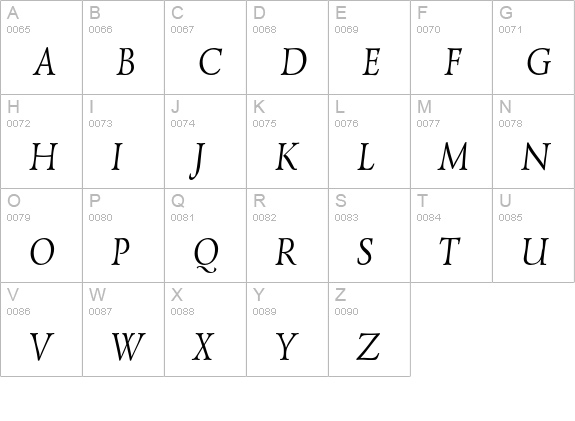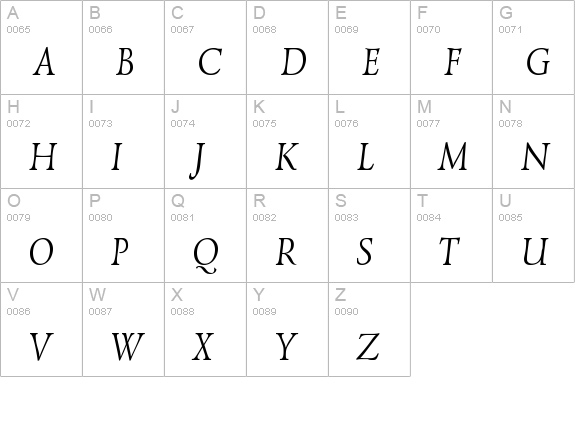
PM Lazurski Italic Cyrillic Font Details
PM Lazurski Italic Cyrillic is a distinctive, italic variant in the PM typeface family \xE2\x80\x94 well suited to design and typography projects.
PM Lazurski Italic Cyrillic is a stunning and elegant font that combines classic elements with a modern twist. This unique typeface is perfect for adding a touch of sophistication to any design project, whether it's a logo, branding, or typography for print or digital media. Its italicized letterforms exude a sense of grace and fluidity, making it a versatile choice for both formal and informal settings. What sets PM Lazurski Italic Cyrillic apart is not only its aesthetic appeal but also its accessibility. This font is freely available to download at FontsMarket.com, allowing designers and typographers to incorporate it into their work without any barriers. Whether you're a professional designer or an aspiring creator, the availability of this font for free ensures that you have access to top-quality design resources. With its comprehensive Cyrillic character set, PM Lazurski Italic Cyrillic goes beyond the Latin alphabet, making it an excellent choice for projects that require multilingual support. Its clean lines and legible letterforms make it easy to read, even at smaller sizes, ensuring that your message is effectively communicated to a diverse audience. The attention to detail in PM Lazurski Italic Cyrillic is evident in its refined curves and precise spacing, ensuring a harmonious and balanced appearance. The font's subtle variations in stroke width create a sense of depth and dimension, adding a touch of sophistication to any design. Whether used in headlines or body text, this font is sure to make a lasting impression. In conclusion, PM Lazurski Italic Cyrillic is a versatile and visually appealing font that combines classic elegance with a contemporary edge. Its freely available download option at FontsMarket.com makes it accessible to designers of all levels. Whether you're working on a professional project or simply exploring your creativity, this font is a valuable addition to your typographic toolbox.